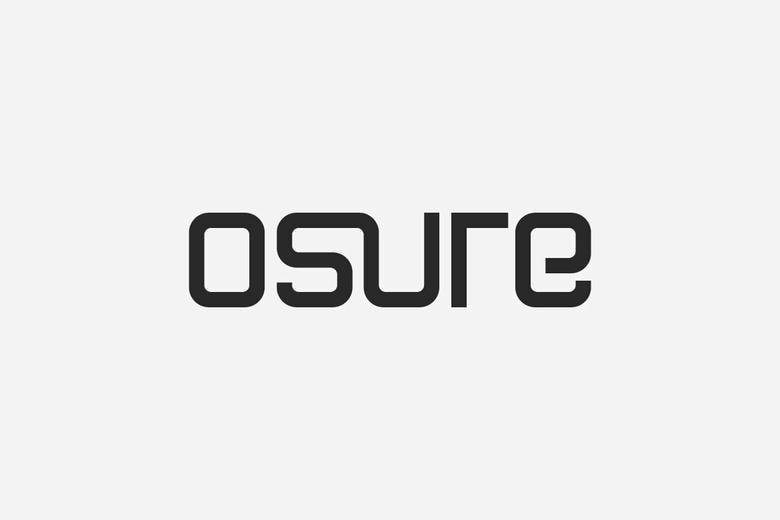
Osure Font
Osure is a simple tech-inspired sans serif typeface that is created to be clear, accurate, and contemporary digital. Osure provides a clean, balanced, and smooth geometric design with a sharp and professional appearance that is designed to suit technology-driven design.
Osure Sans Serif Font